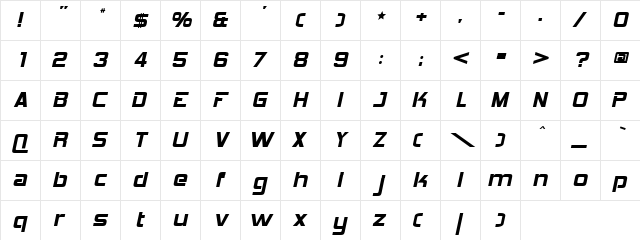
Hemi Head 426 Regular
Design Context for Hemi Head 426 Typeface
Hemi Head 426 is a composed and adaptable typeface that performs quietly and consistently across a wide range of design contexts.